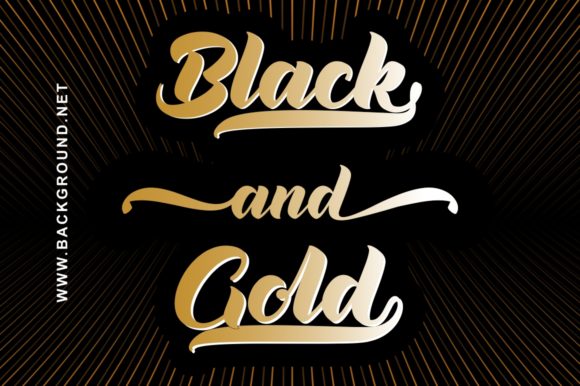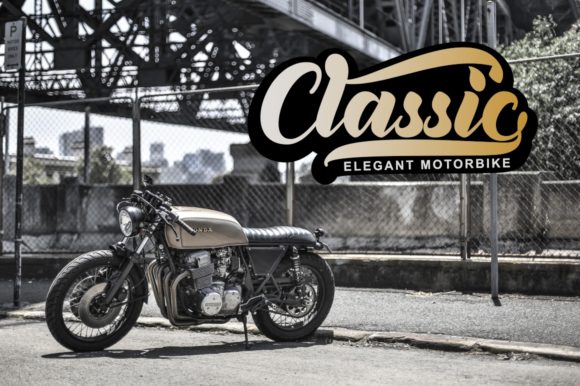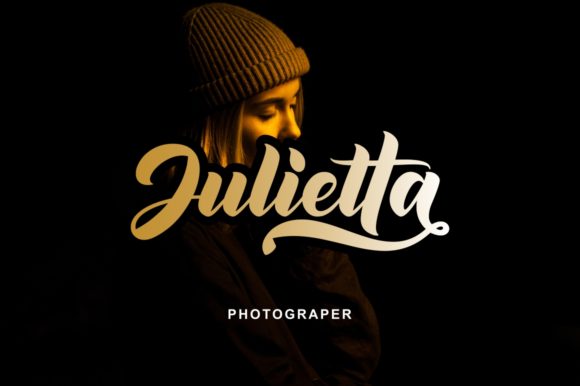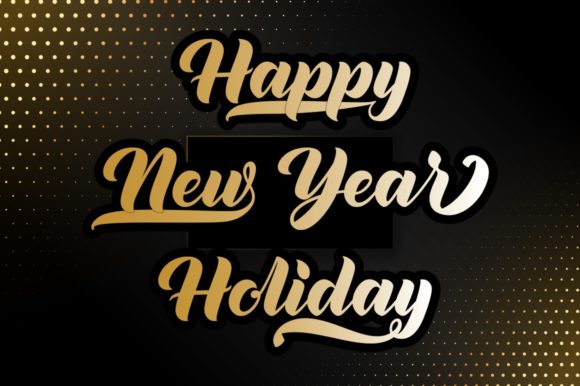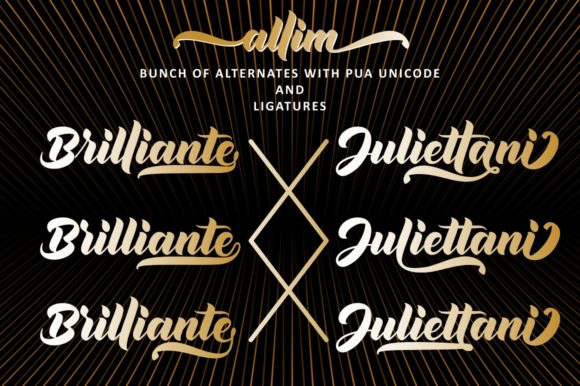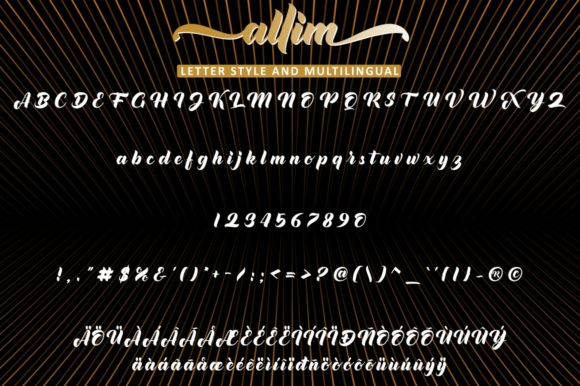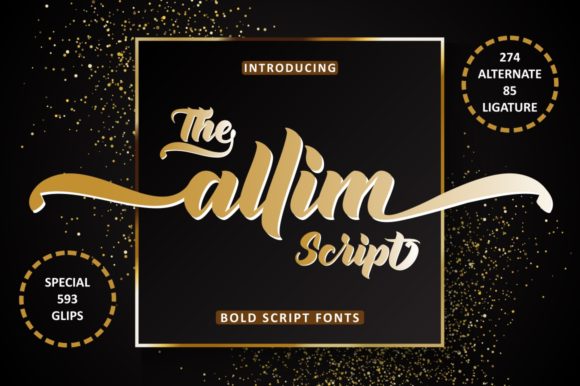
Discover the Unique Charm of Allim Font: A Sweet and Cool Script with a Bold Vibe
Are you a designer or crafter looking for a font that can add a touch of personality to your projects? Look no further than Allim Font, a sweet and cool script that exudes a bold vibe. In this article, we’ll dive into the world of Allim Font, exploring its unique charm, features, and uses. Get ready to be inspired!
What is Allim Font?
Allim Font is a modern script font that has taken the design world by storm. Its bold and playful vibe makes it perfect for a wide range of projects, from branding and advertising to crafting and DIY tutorials. With its unique charm and character, Allim Font is sure to capture the attention of your audience and leave a lasting impression.
Key Features of Allim Font
So, what makes Allim Font so special? Here are some of its key features:
• Bold and Playful Vibe: Allim Font has a confident and adventurous feel that’s perfect for making a statement.
• Unique Charm: The font’s distinctive character and personality shine through in every letter and swirl.
• Highly Versatile: Allim Font can be used for a wide range of projects, from digital designs to print materials.
• Easily Readable: Despite its bold and playful vibe, Allim Font remains highly readable, even at smaller sizes.
Uses of Allim Font
Allim Font is an incredibly versatile font that can be used in a variety of contexts. Here are some ideas to get you started:
• Branding and Advertising: Use Allim Font to create eye-catching logos, ads, and marketing materials that demand attention.
• Crafting and DIY Tutorials: Add a personal touch to your crafting and DIY tutorials with Allim Font’s playful and charming vibe.
• Digital Designs: Use Allim Font to create stunning digital designs, from social media graphics to website headers.
• Print Materials: Add a touch of personality to your print materials, such as brochures, flyers, and business cards.
Allim Font is a sweet and cool script with a bold vibe that’s sure to inspire designers and crafters alike. With its unique charm, versatility, and readability, Allim Font is the perfect addition to any project. Whether you’re looking to create a stunning brand identity, add a personal touch to your crafting tutorials, or simply want to make a statement with your designs, Allim Font is the perfect choice. So why wait? Get inspired by Allim Font’s unique charm and take your designs to the next level!